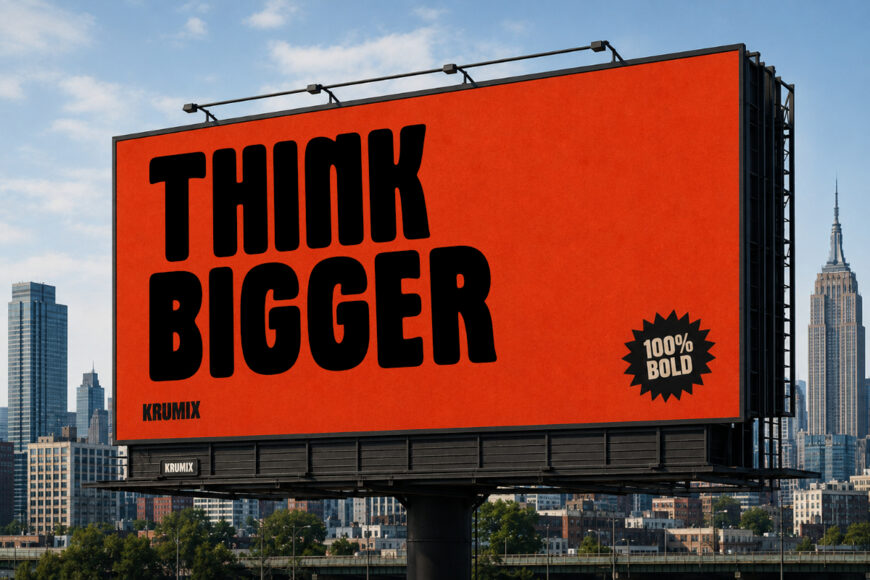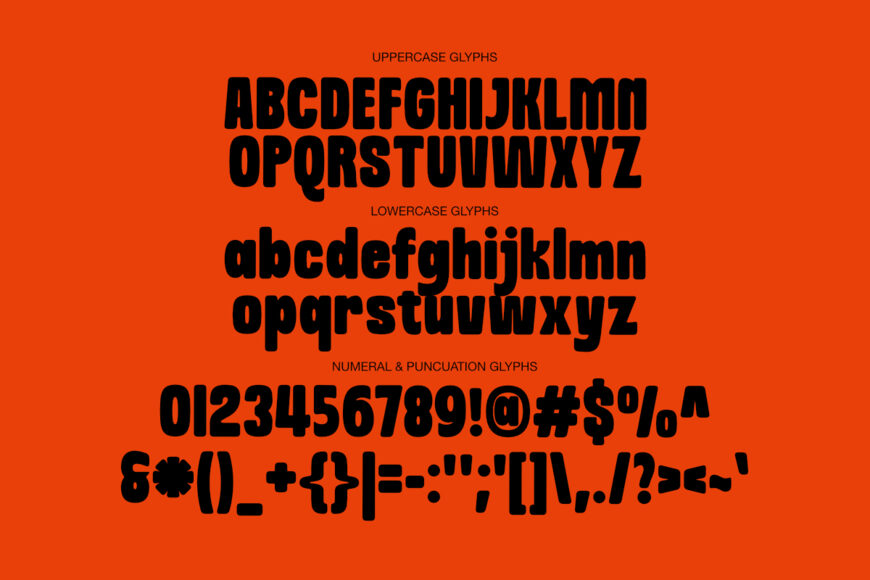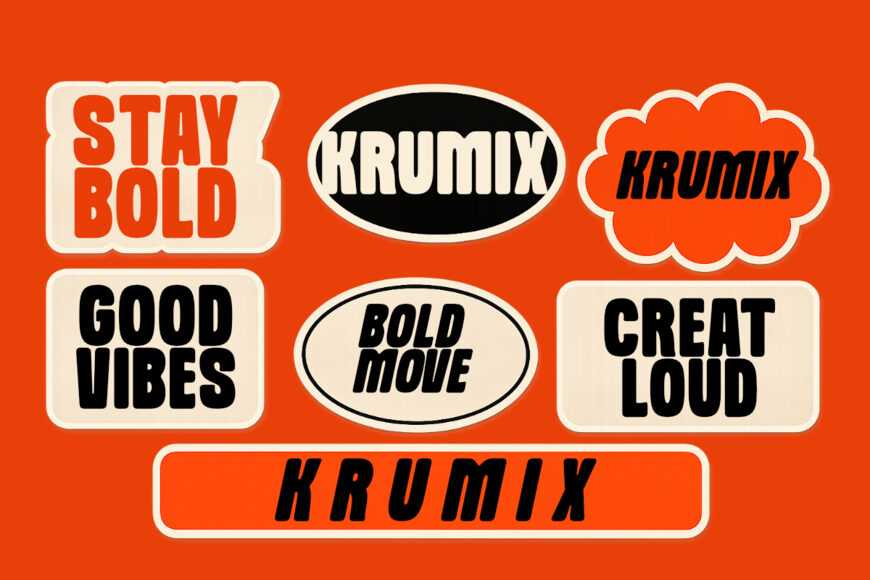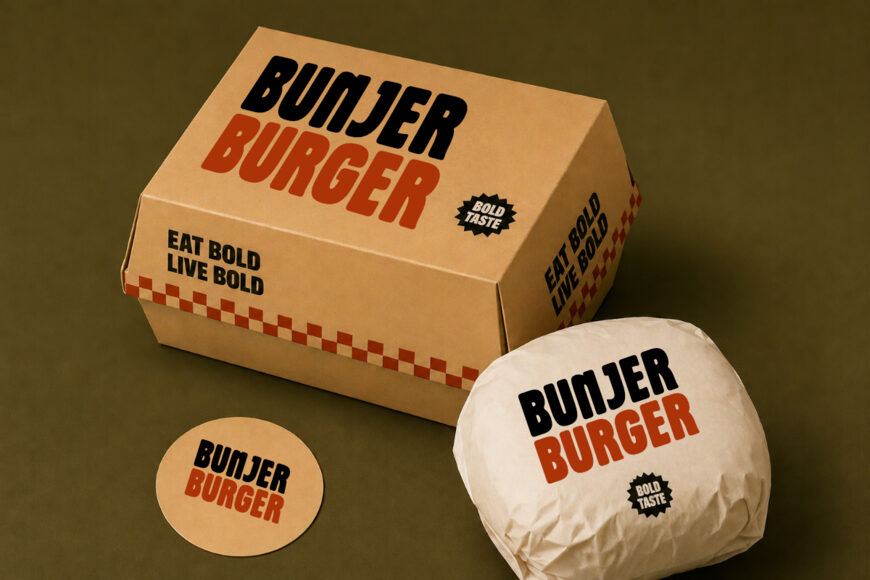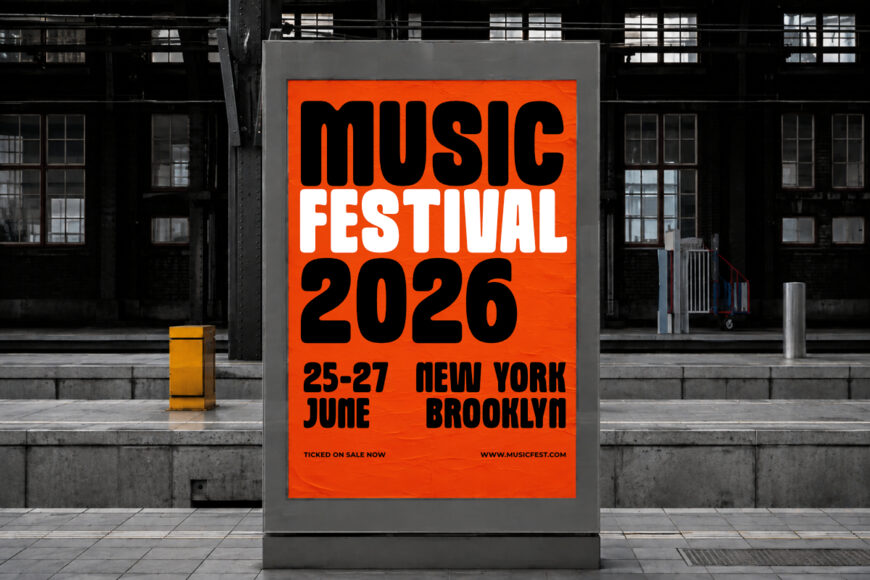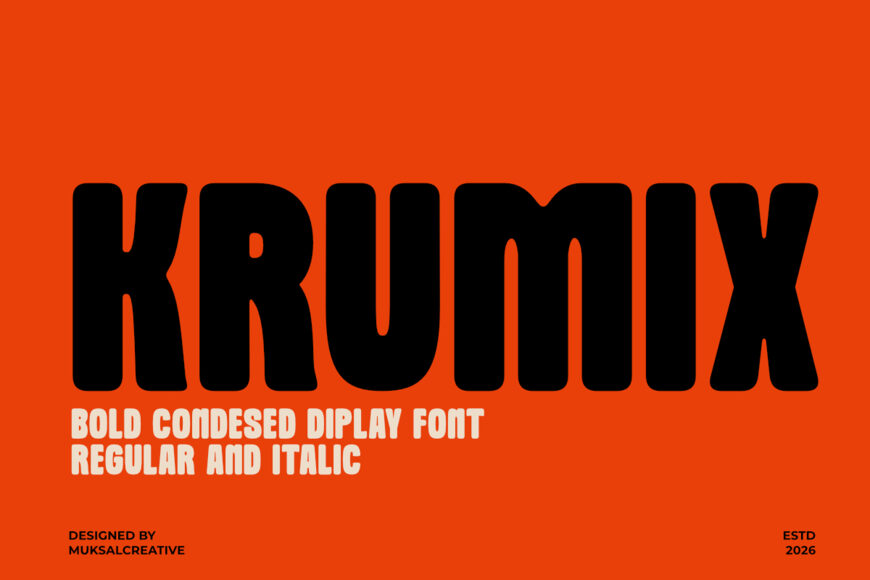
Krumix Font
Krumix is a bold condensed display font designed to make a powerful visual statement. With its strong vertical proportions, rounded corners, and confident personality, Krumix delivers maximum impact while maintaining excellent readability.
Inspired by contemporary poster design, urban branding, and modern editorial layouts, Krumix is perfect for designers who want typography to become the centerpiece of their work. Whether you’re creating eye-catching headlines or bold brand identities, Krumix brings energy, confidence, and character to every project.